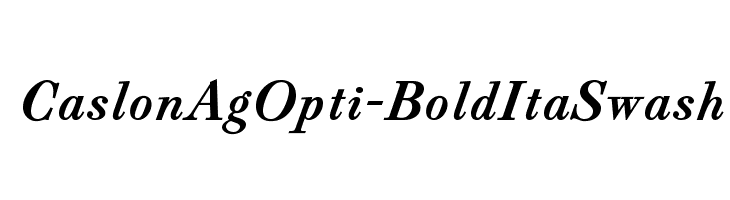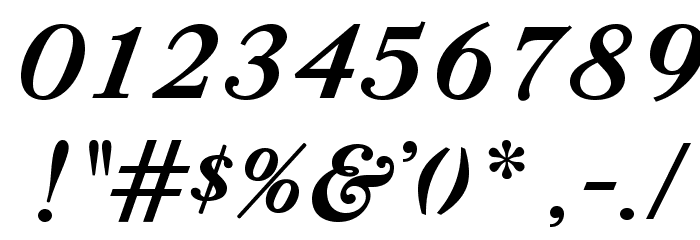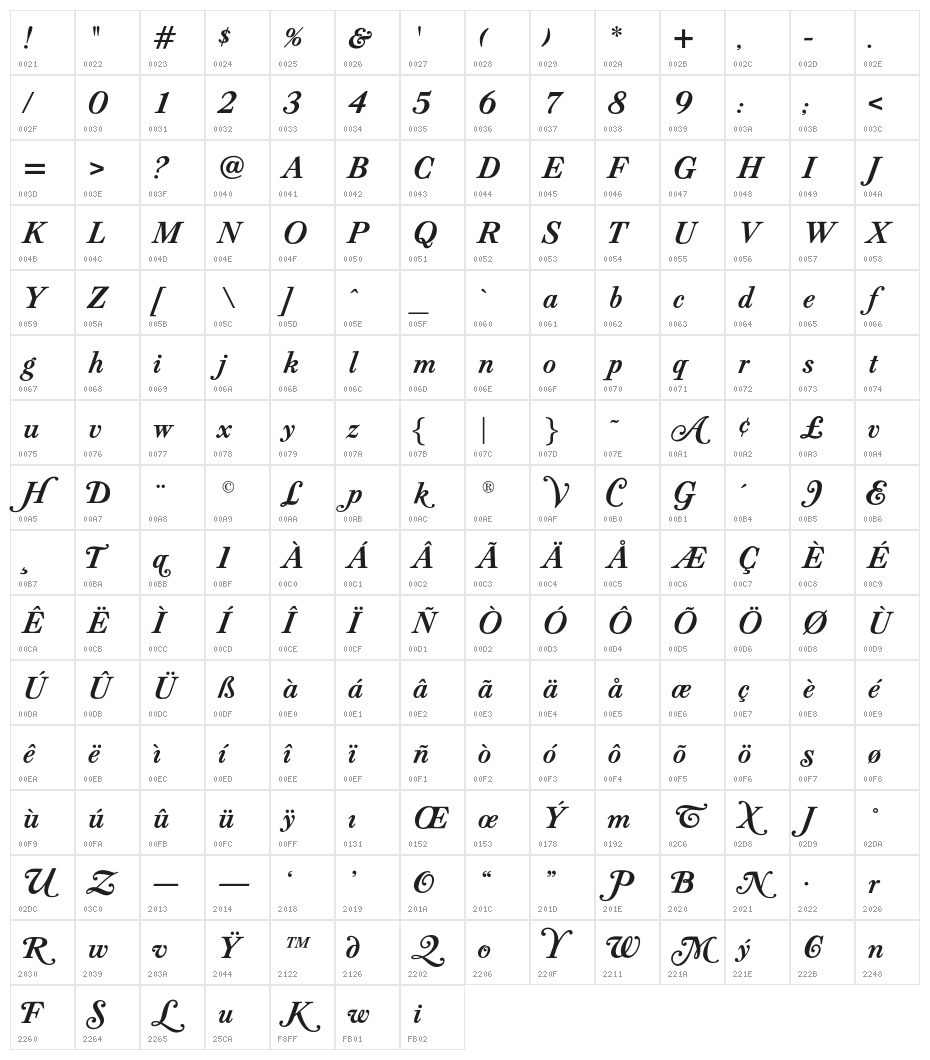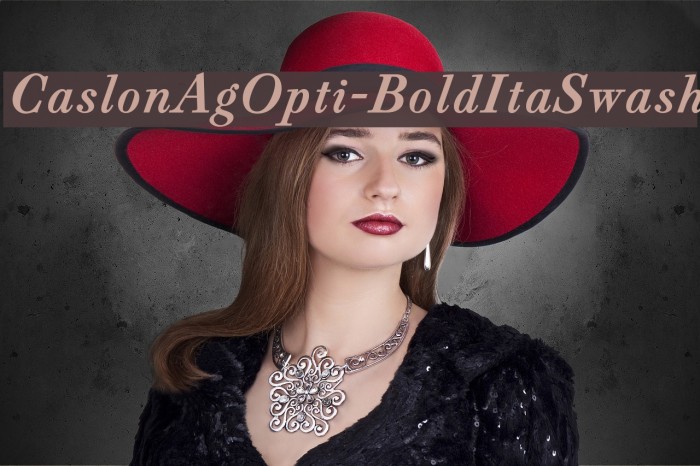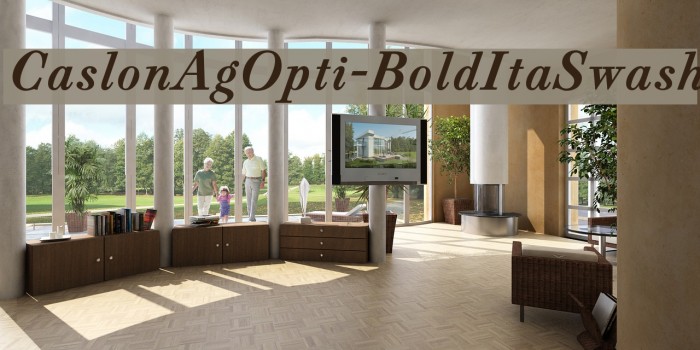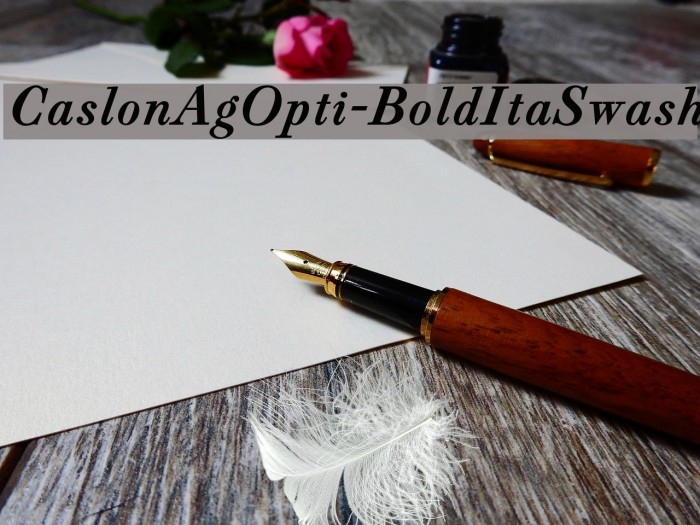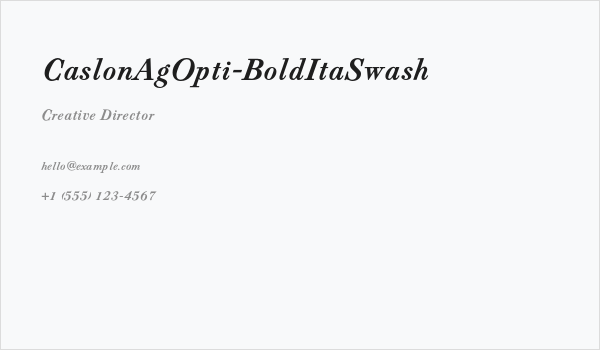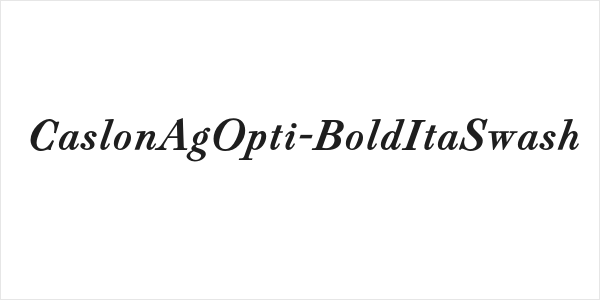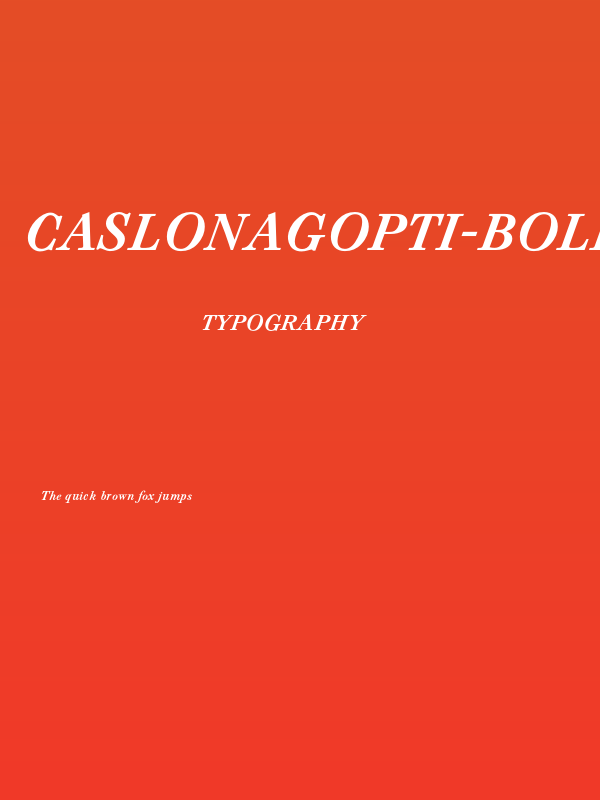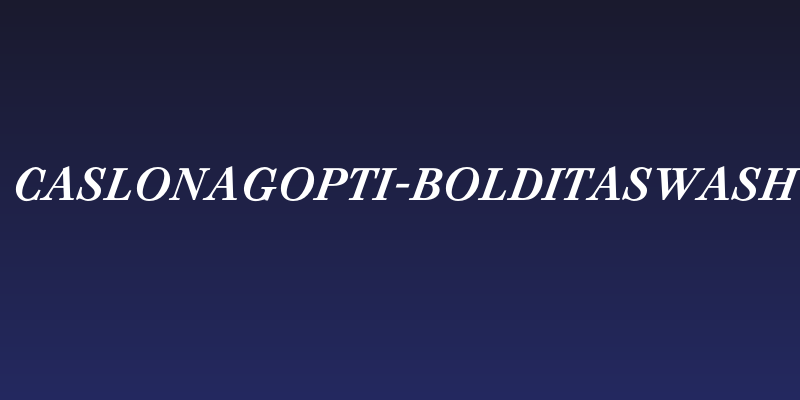
CaslonAgOpti-BoldItaSwash Font
CaslonAgOpti-BoldItaSwash Description
This font exudes a classic elegance with its bold and italicized swash style. The characters are well-defined with a slight slant, adding a dynamic and sophisticated feel. The uppercase letters are stately and commanding, while the lowercase letters maintain a graceful flow. The numerals are clear and balanced, complementing the overall aesthetic. Special characters are stylishly integrated, enhancing the font's versatility. The strokes have a medium contrast, providing a harmonious balance between thick and thin lines, which contributes to its readability and visual appeal.
| Proposed Projects | Ideal for wedding invitations, luxury branding, editorial headlines, and elegant packaging designs. |